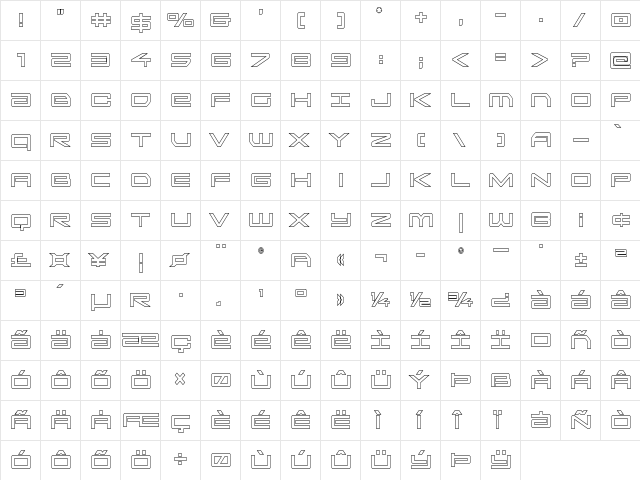
Sky Ridge Condensed Outline Regular
Design Context for Sky Ridge Condensed Outline Typeface
Sky Ridge Condensed Outline brings ornamental detail and strong personality to headlines and identities, where visual impact matters more than quiet functionality.
Font Pairing: Pair with a clean neutral sans-serif for body copy to let Sky Ridge Condensed Outline's character lead without overwhelming the composition.
Pro Tip: Treat Sky Ridge Condensed Outline as the centrepiece of your typographic hierarchy. One strong heading set in a decorative face can carry an entire layout.